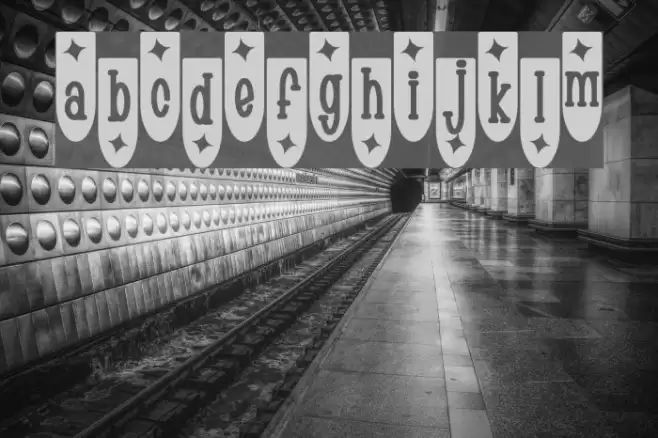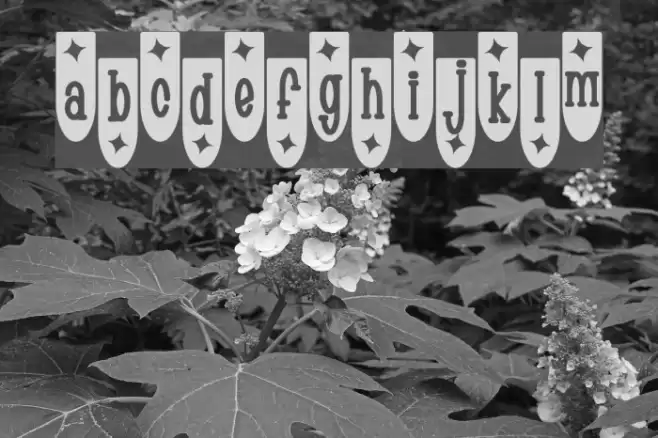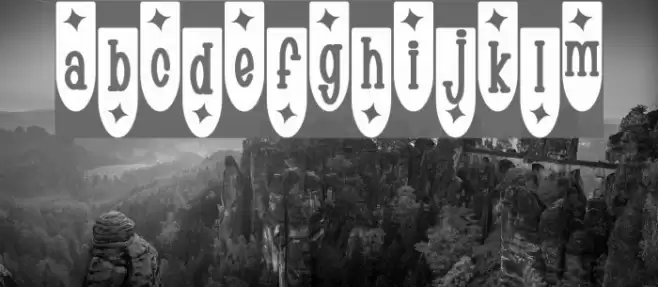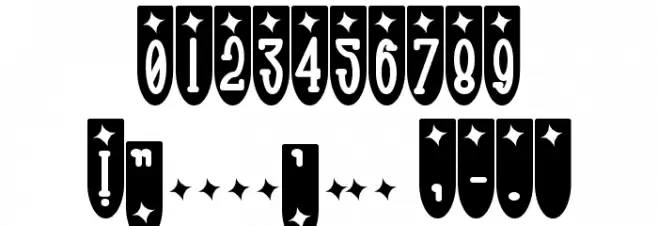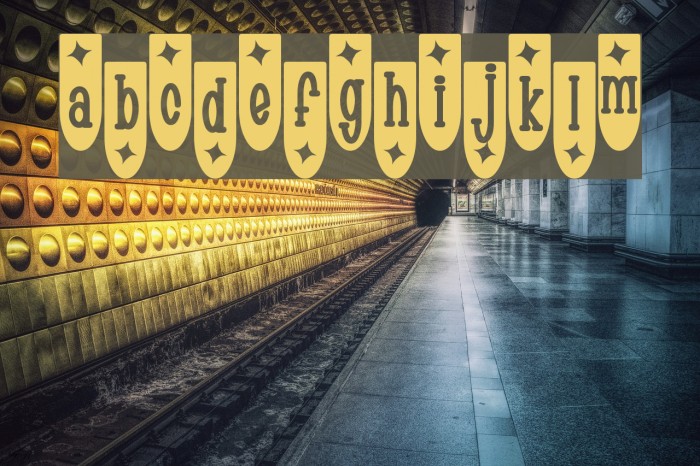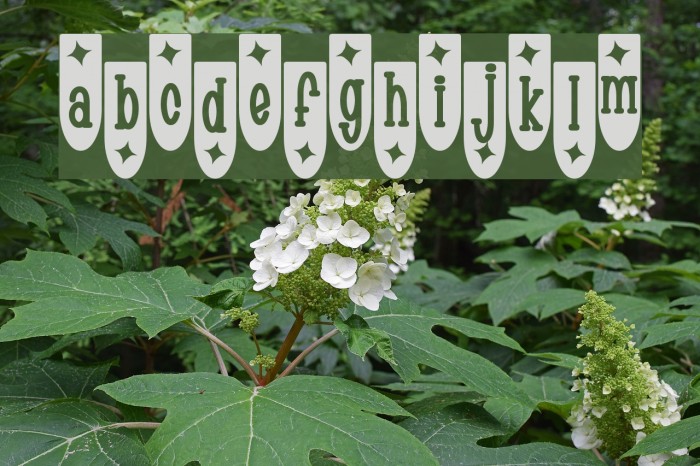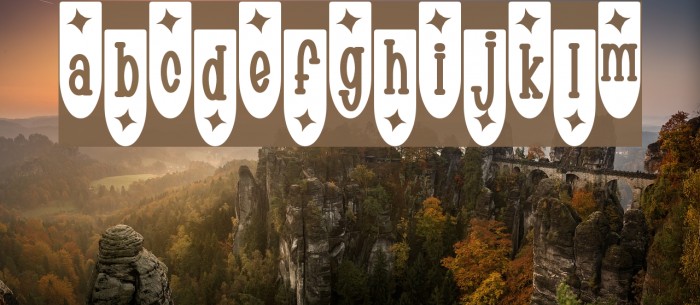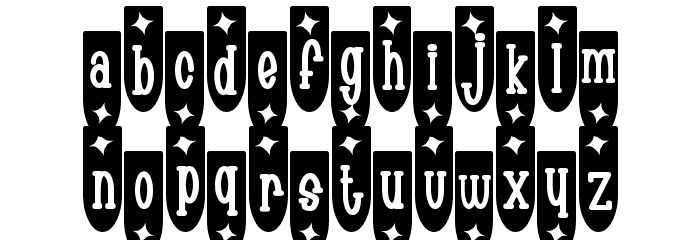
Populuxe Trink Font
Populuxe Trink Description
This font features a bold and decorative style with a unique shield-like background for each character. The letters are embellished with star motifs, giving it a playful and eye-catching appearance. The characters are uniformly enclosed in a black shield, creating a striking contrast with the white letters. This design is consistent across uppercase, lowercase, numbers, and special characters, maintaining a cohesive look. The font's whimsical and bold nature makes it ideal for projects that require a standout, decorative typeface.
A bold, decorative font with star motifs and shield backgrounds from Gothic fonts.
- Proposed Projects: Ideal for posters, event invitations, children's book covers, and playful branding projects.